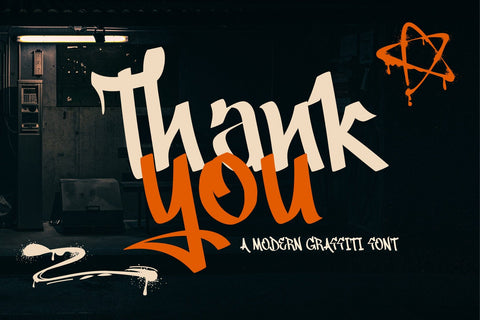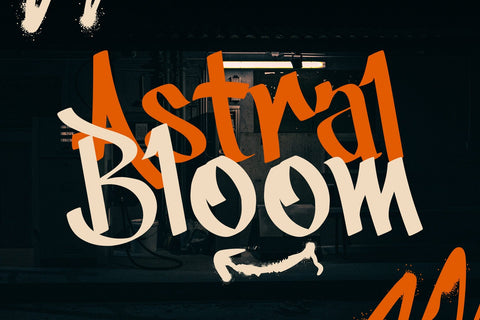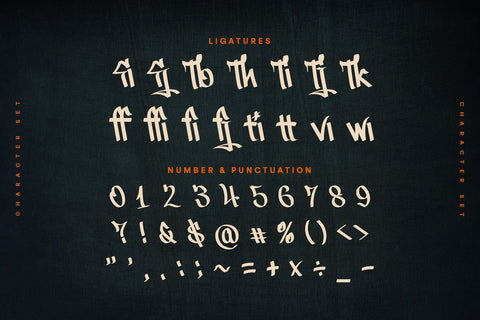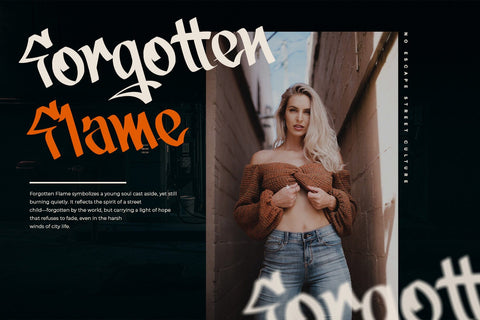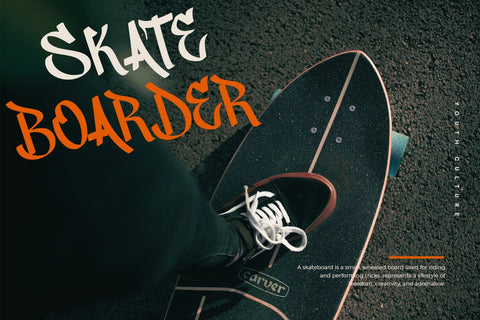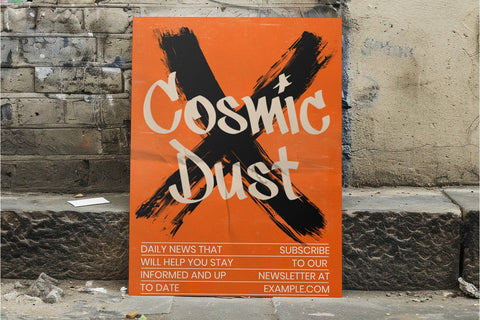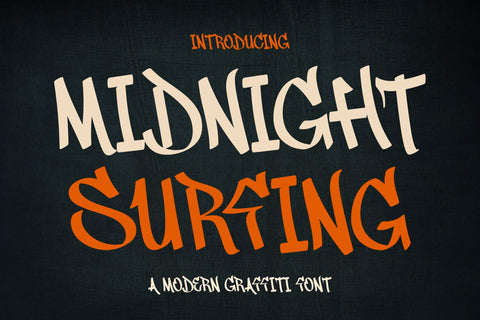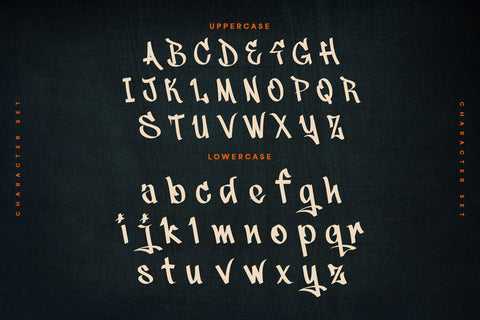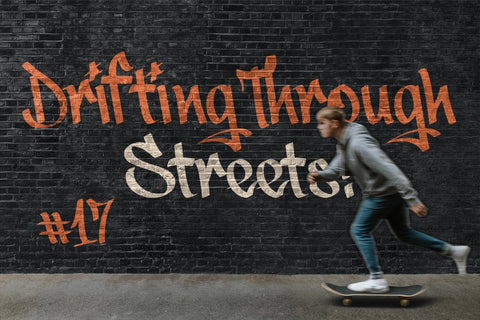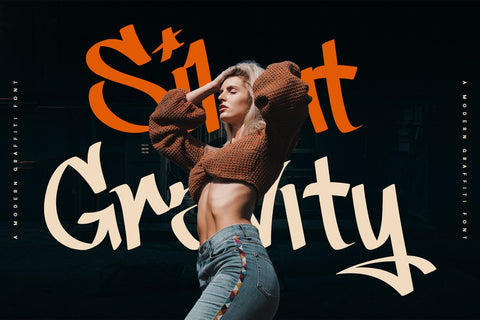
Midnight Surfing - A Modern Graffiti Font
Unleash your creativity with Midnight Surfing, a vibrant and energetic modern graffiti font that captures the raw, urban spirit. This expressive display font is perfect for streetwear brands, music covers, skateboarding graphics, event posters, youth marketing, and designs that demand an edgy, rebellious aesthetic. Midnight Surfing features dynamic brush strokes and an authentic hand-painted feel, bringing a spontaneous and artistic vibe to your typography. Its unique style ensures your projects stand out with a raw, bold, and untamed character. Elevate your designs with Midnight Surfing, the ideal font for those seeking to infuse their work with an unmistakable street art attitude and high-energy appeal.